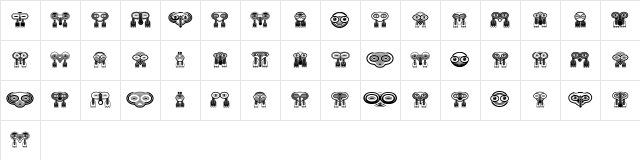
Wakazi Regular Free Font
Wakazi Regular
Design Context for Wakazi
Wakazi is a composed and adaptable typeface that performs quietly and consistently across a wide range of design contexts.